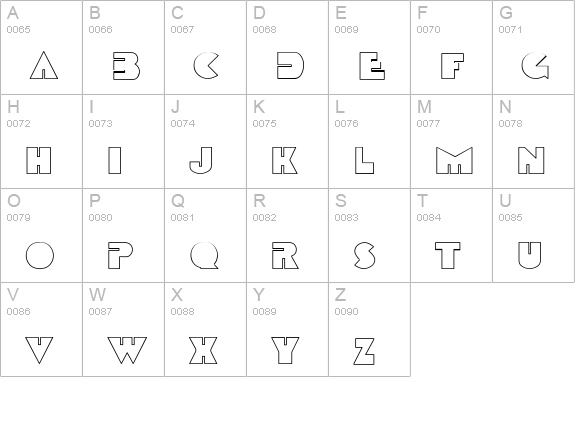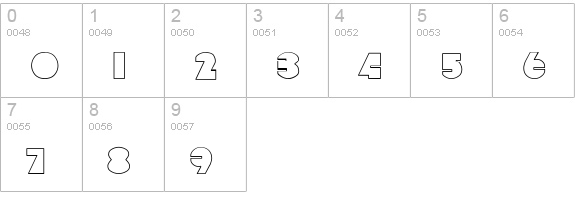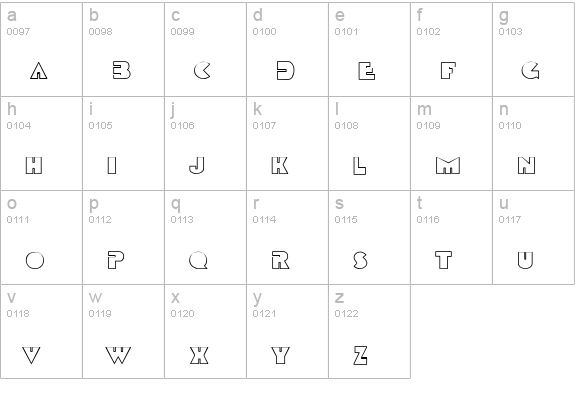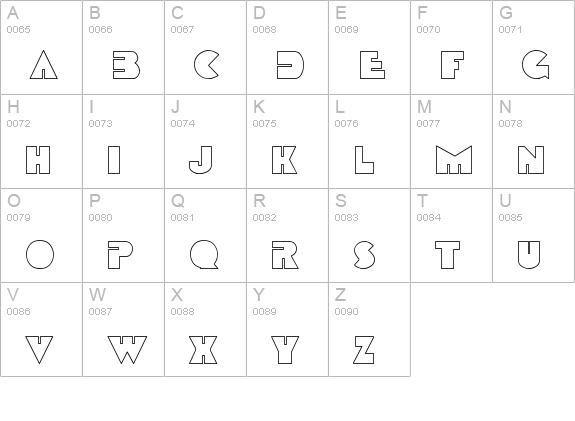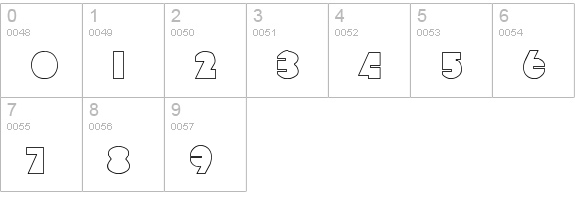
Devendra Ho Normal Font Details
Devendra Ho Normal is the standard, neutral variant in the Devendra typeface family \xE2\x80\x94 well suited to general body text, paragraphs, and standard typographic work.